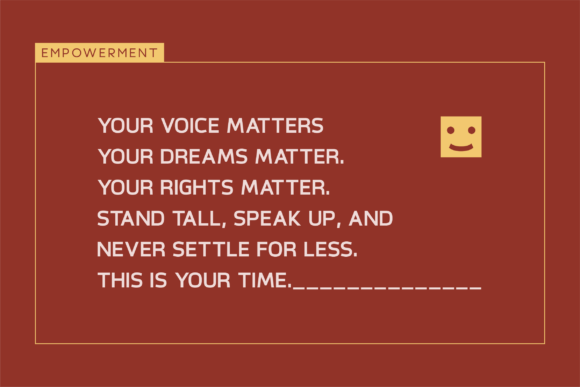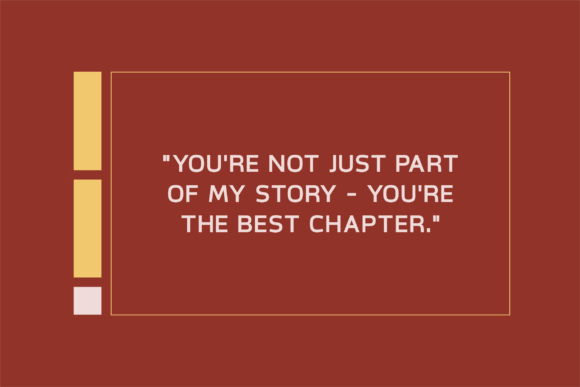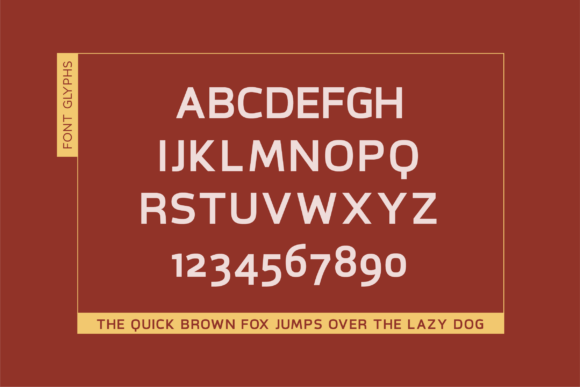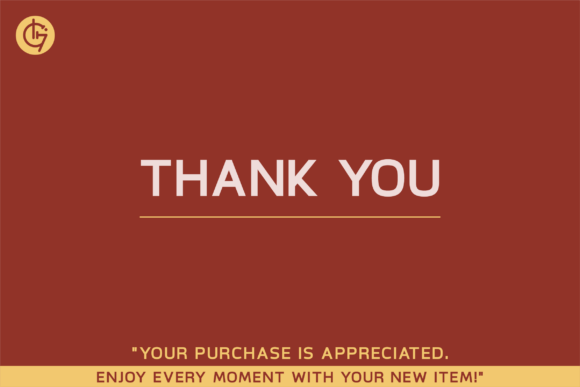
Introduction to Redcurrant Font
Introducing Redcurrant – A Modern Sans Serif Typeface Redcurrant is a bold, all-caps sans serif font designed for the modern designer.
With its clean lines and minimalist aesthetic, this typeface exudes strength and authority It is perfect for projects that require a sense of professionalism and impact.
Key Features of Redcurrant Font
Why Choose Redcurrant Font?